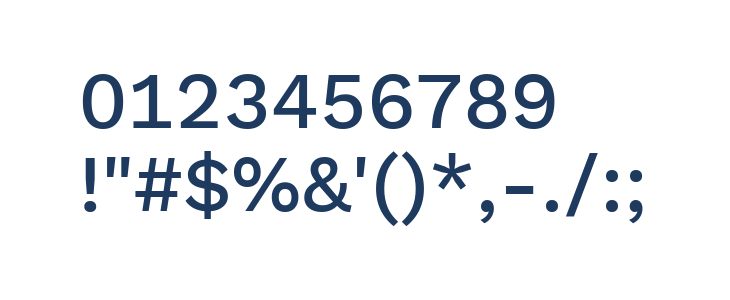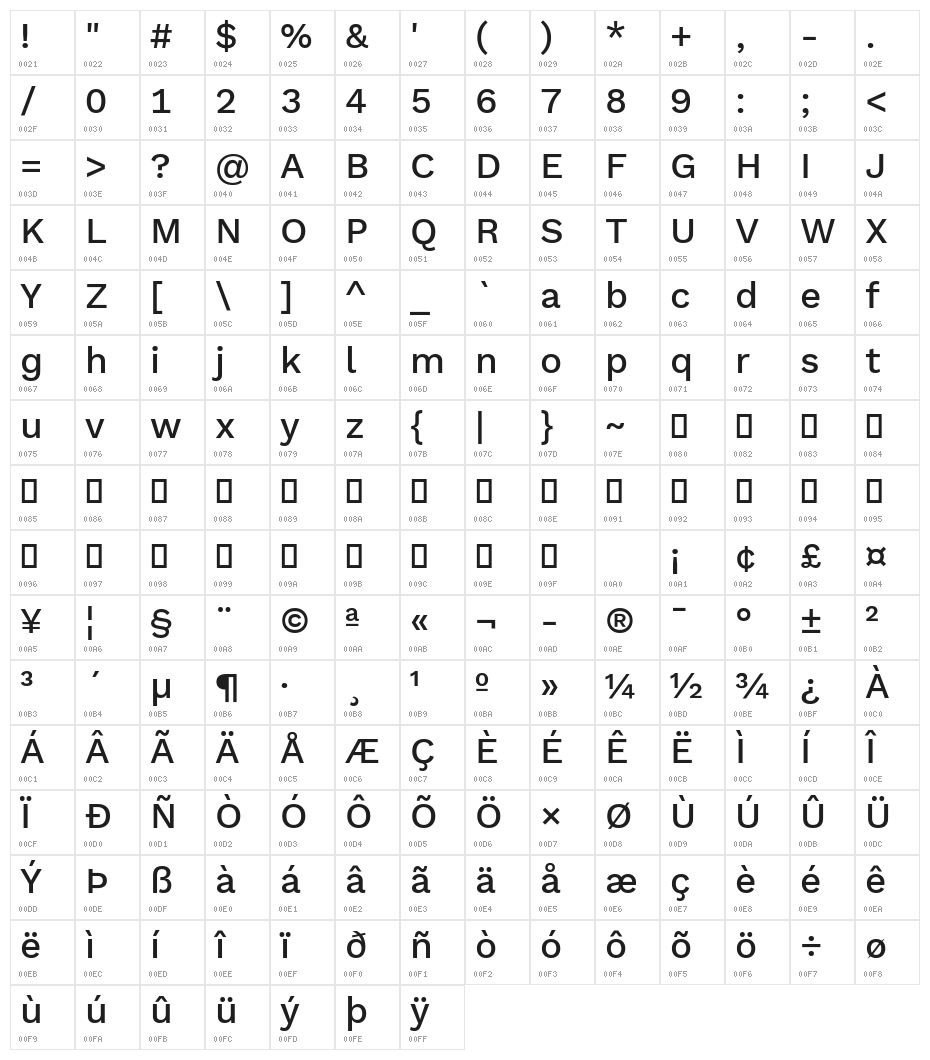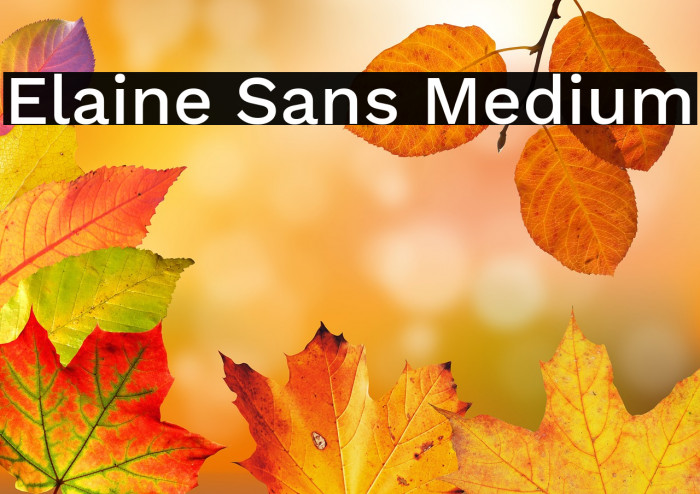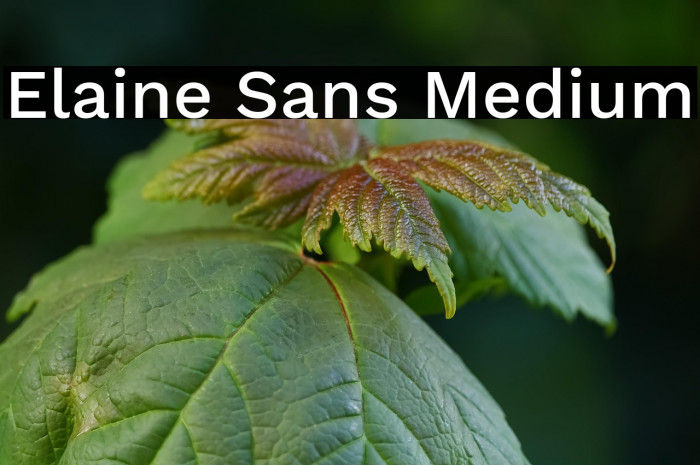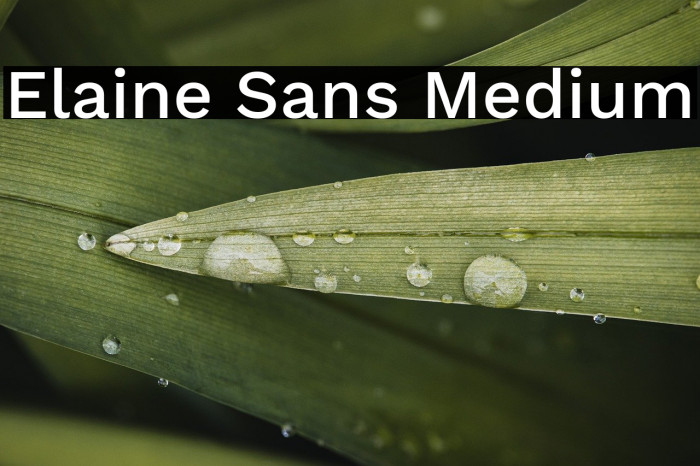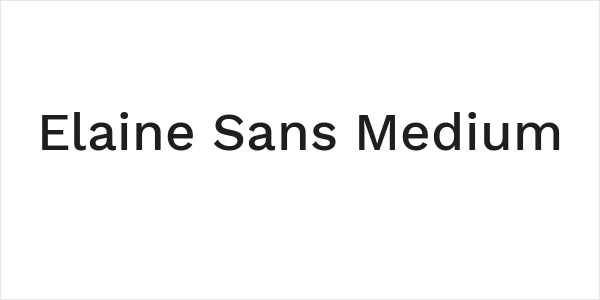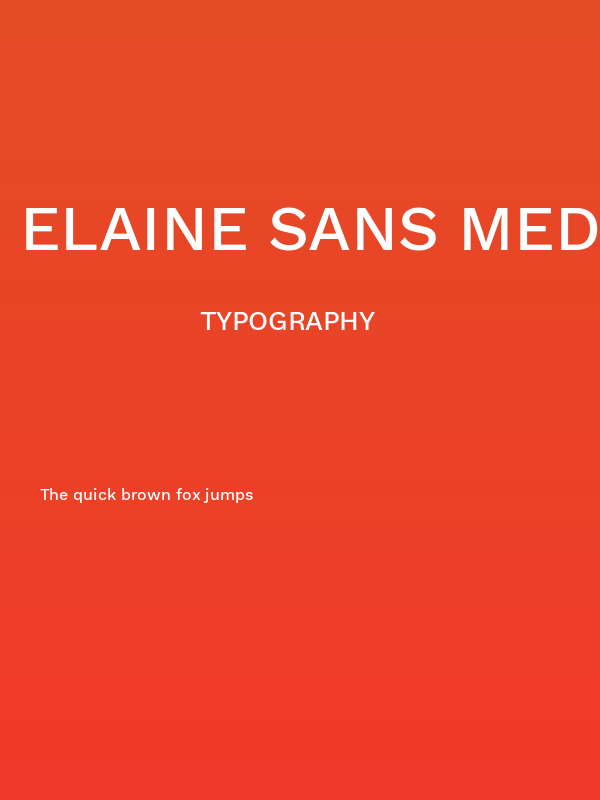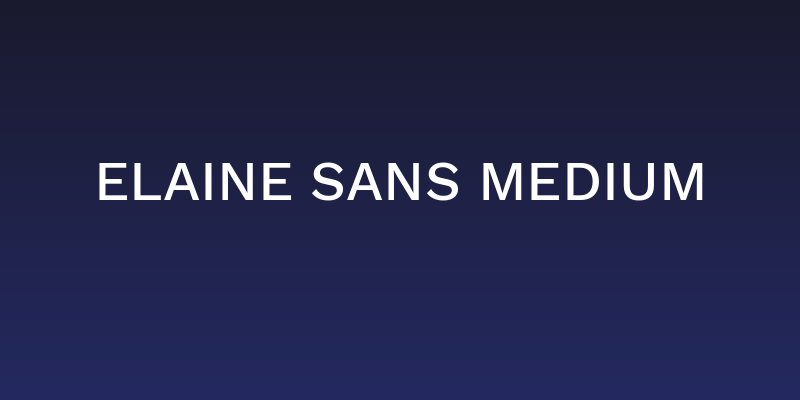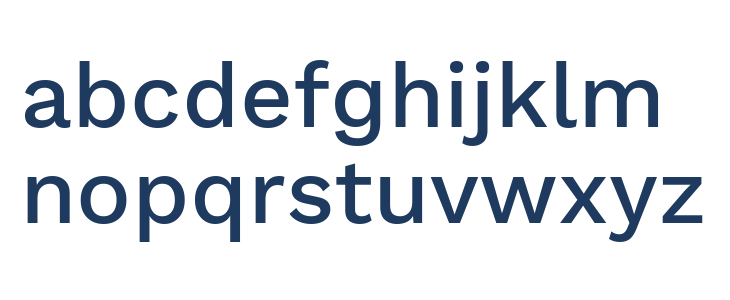
Elaine Sans Medium Font
Elaine Sans Medium Description
This typeface presents a clean and modern appearance with a sans-serif style. The characters are evenly spaced, contributing to a balanced and readable text. The strokes are consistent in width, providing a uniform look across all characters. The uppercase letters are bold and assertive, while the lowercase letters maintain a friendly and approachable feel. The numerals are clear and distinct, making them easily readable. Special characters are well-defined, ensuring versatility in various applications. This font is suitable for both digital and print media, offering a professional yet contemporary aesthetic.